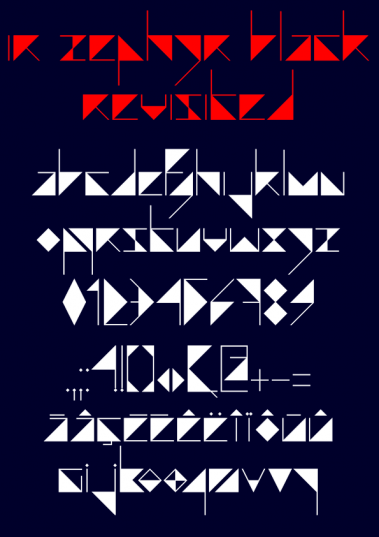
your work here reminds me of nautical flags. surely this could quality as an entry in the SportsComp, no? this is very fun and dynamic.
Thanks for the encouragement and the advice funk_king. I'll try to make a sample showing the font in a nautical context.
With it's abstract style it spreads a certain hypnotic effect. i like it very much, now that i've seen a worthy sample
your the man!
Some punctuation marks in close-up:
your samples are very effective and show just how beautiful and well-suited this works as a nautical-themed font. very nice.
Really nice, and It somehow looks better when It doesn't use halfbricks. Just a little better scaled, dunno exactly.
I love it.
Thanks Meek! You must have dig deep to exhume this old font of mine... I've not been active for a long time on Fontstruct, but I appreciate that some old works can live a new life ; community is memory.
@Igorrossi, i love your font for a long time, this message is to point a pro font that has many similarities with yours even if it has a distinctive feel. Do you know the font Argonautica by the URW foundry ? I try to put a link, if that doen't work, you can find it at Myfonts.com